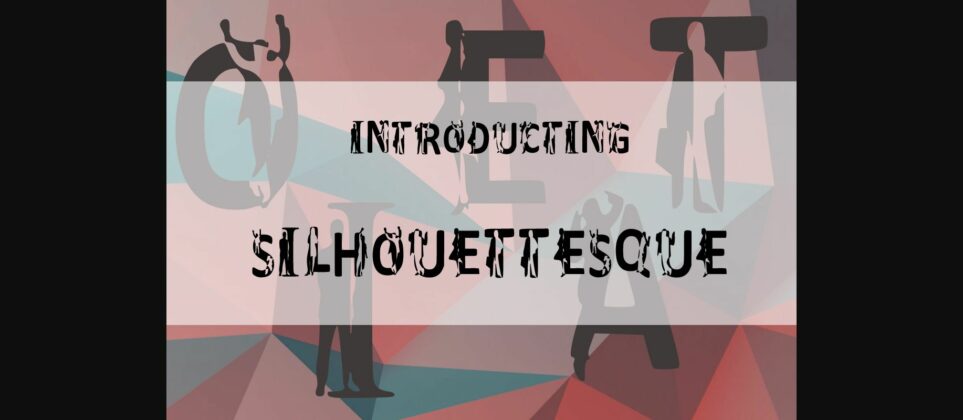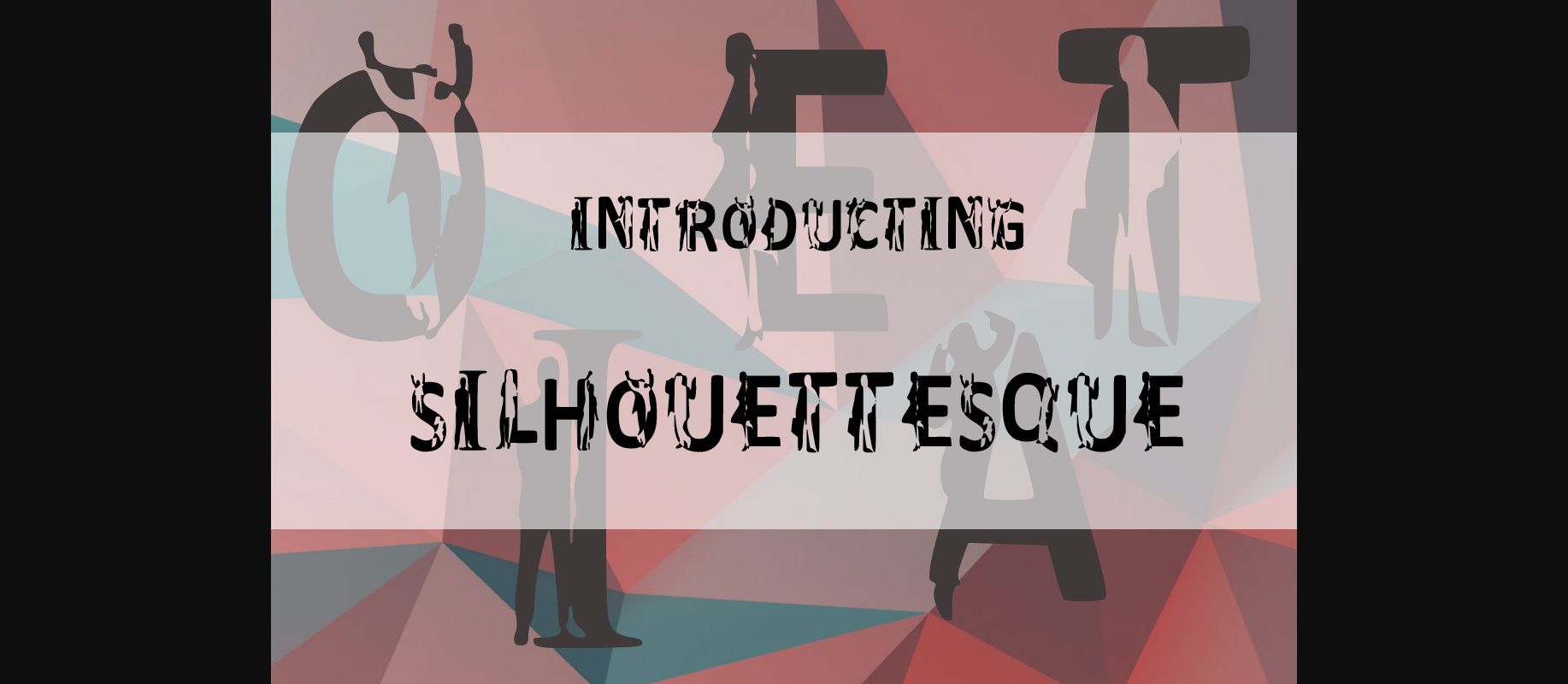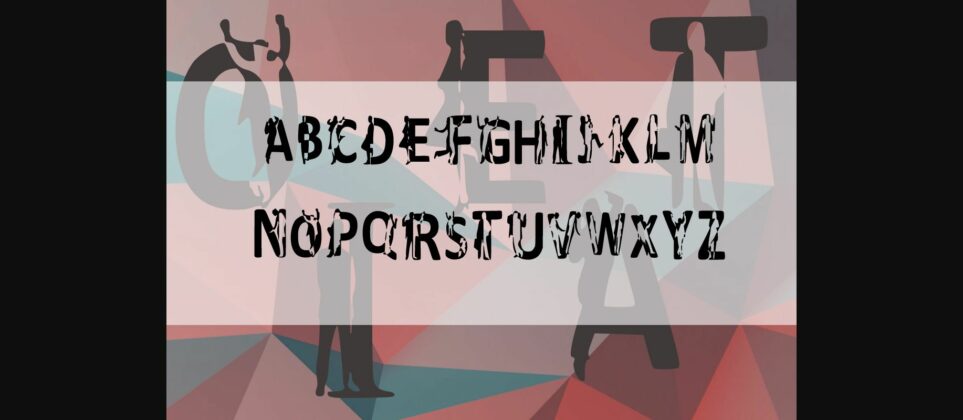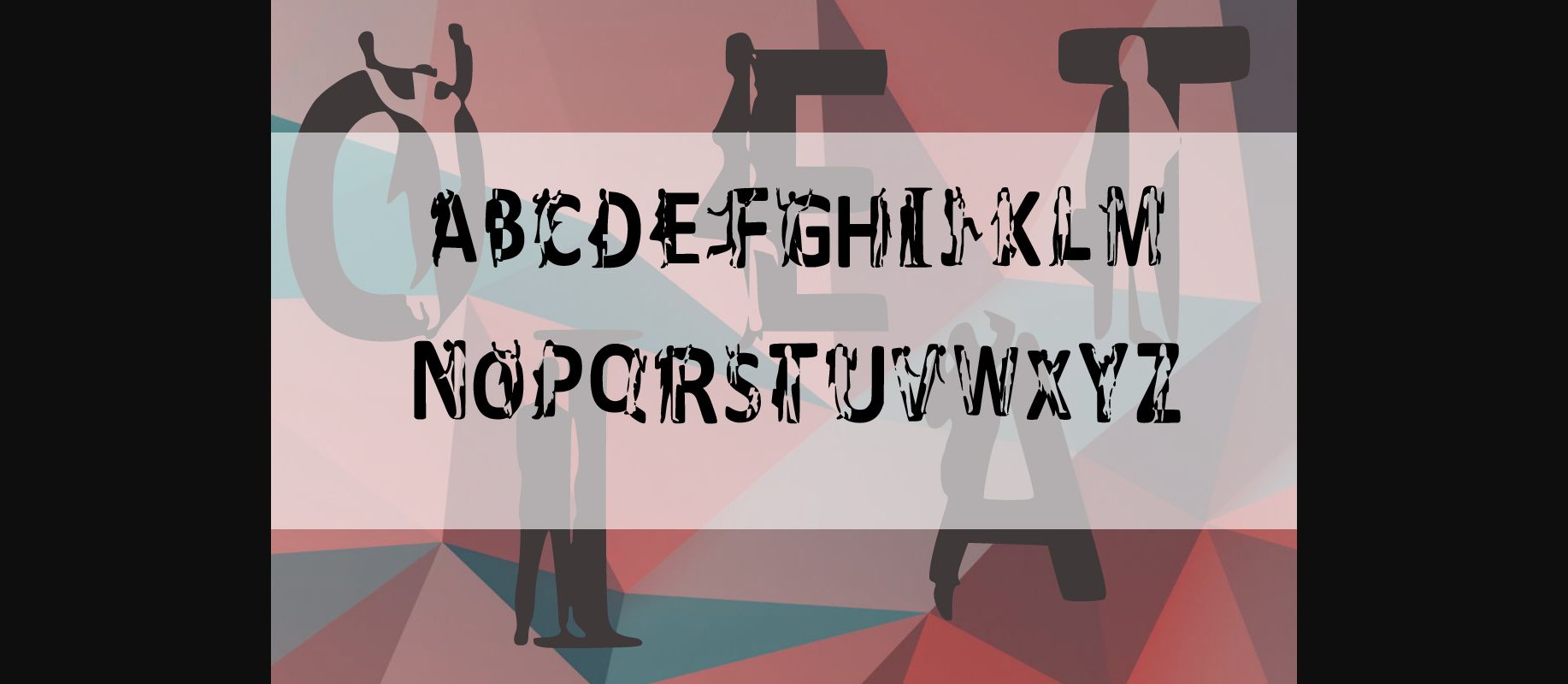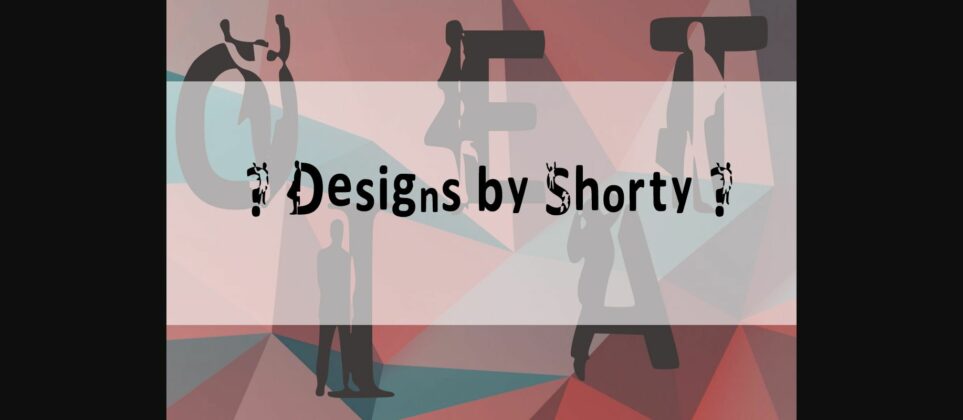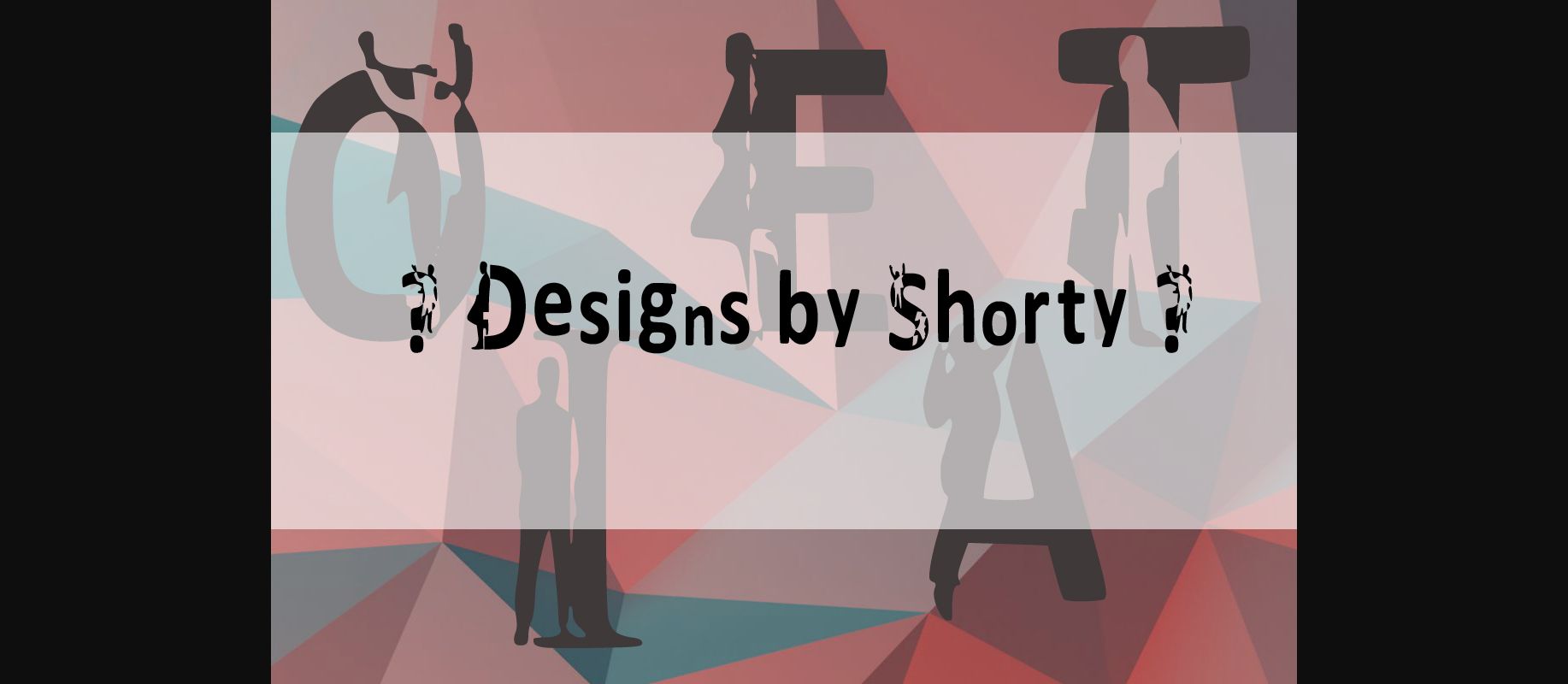
Silhouettesque Font
About Silhouettesque Font
Silhouettesque is a fun and original decorative font, best suited for large headings. Add it for book covers, banners, websites or any other bold design idea. There is no limit to imagination.